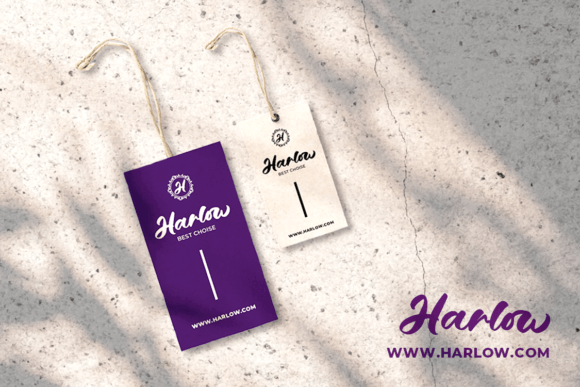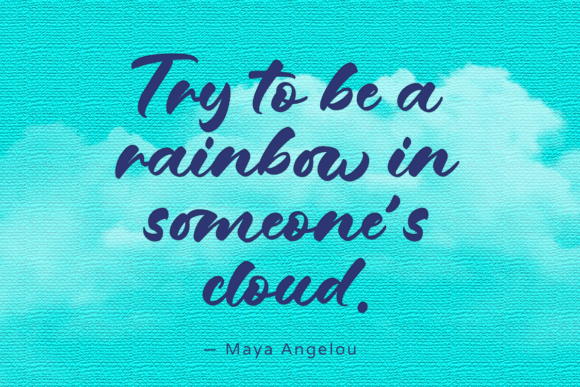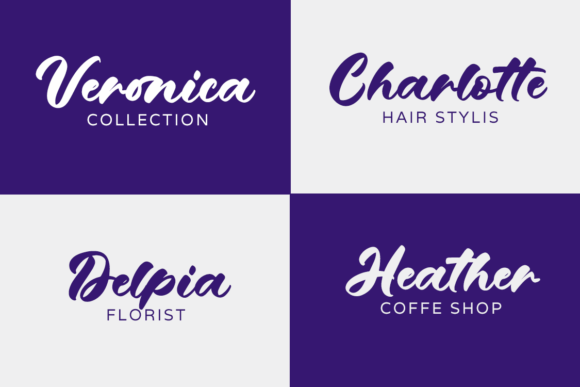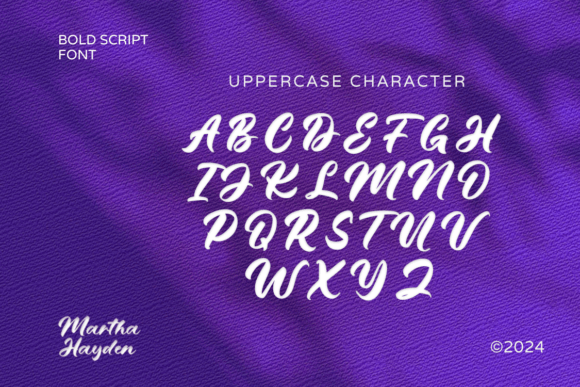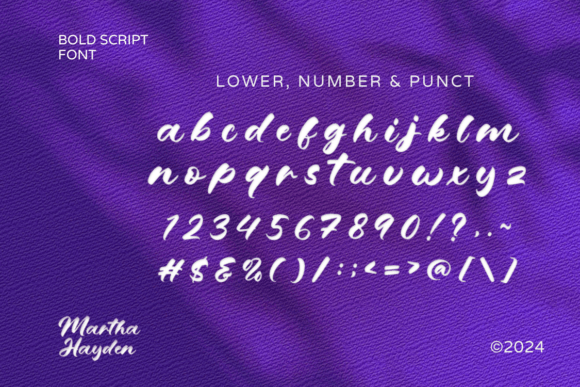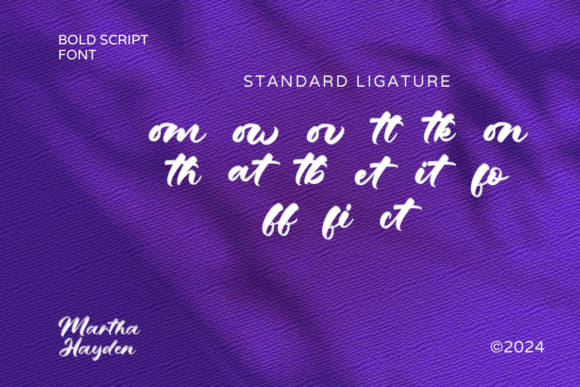
Introduction to Martha Hayden Font
Martha Hayden is a captivating bold script font that brings elegance and flair to your designs.
Perfect for book titles, logos, flyers, branding, banners, crafting, and invitations, this font features graceful curves and a robust presence Its versatile style enhances any project, adding sophistication and charm.
Key Features of Martha Hayden Font
Why Choose Martha Hayden Font?
Martha Hayden Font offers exceptional quality and versatility, making it a valuable addition to your design toolkit. Whether you’re creating for personal projects or commercial use, Martha Hayden Font delivers professional results.